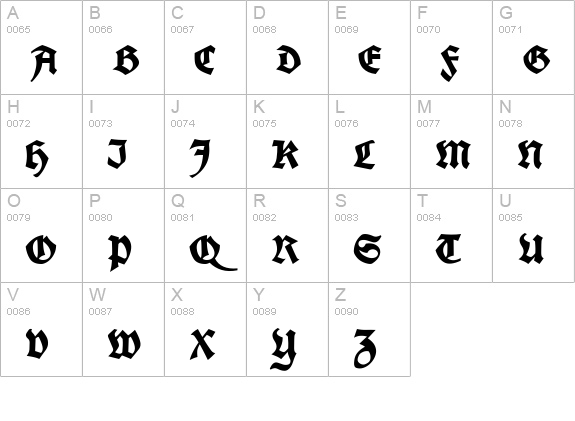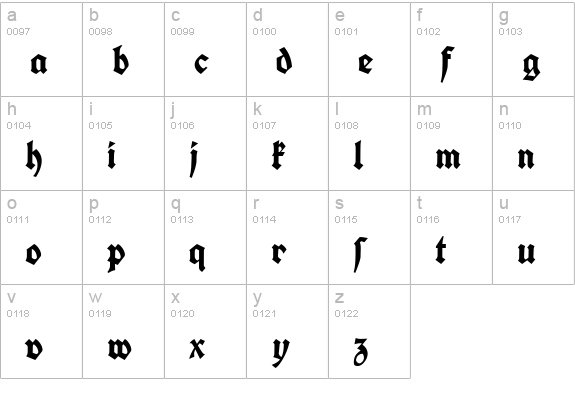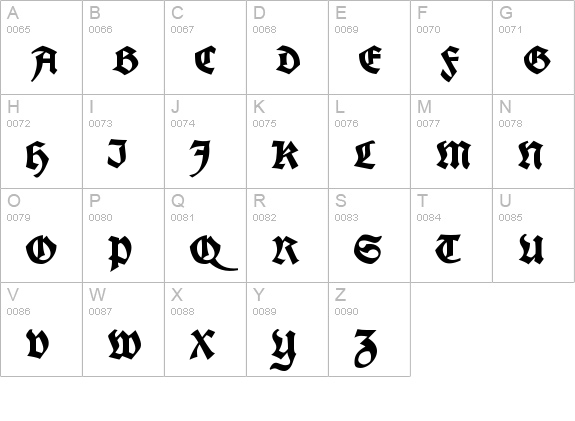
Koch Fette Deutsche Schrift Font Details
Koch Fette Deutsche Schrift is a stunning font that exudes a sense of timeless elegance and sophistication. With its bold and distinctive letterforms, this typeface pays homage to the rich history of German calligraphy. Its strong and confident strokes create a visual impact that is both eye-catching and memorable. This font is perfect for a wide range of creative projects, including branding, logo design, advertising, and editorial layouts. Its versatility allows it to seamlessly adapt to both modern and vintage aesthetics, making it a must-have for any designer or typographer. What sets Koch Fette Deutsche Schrift apart is not only its exceptional design but also its accessibility. This font is freely available to download at FontsMarket.com, allowing designers and enthusiasts alike to incorporate its beauty into their work effortlessly. Whether you are a seasoned professional or an aspiring artist, having access to this remarkable font can elevate your designs to new levels of excellence. Designed with meticulous attention to detail, Koch Fette Deutsche Schrift captures the essence of German craftsmanship and typographic mastery. Each letter is carefully crafted to ensure optimal legibility and visual impact, making it a perfect choice for headlines, titles, and prominent text elements. The versatility of Koch Fette Deutsche Schrift extends beyond print to digital applications as well. Its clean lines and well-defined curves make it highly readable on screens of all sizes, ensuring that your message will resonate with your audience, whether in print or online. In conclusion, Koch Fette Deutsche Schrift is a font that effortlessly combines elegance, versatility, and accessibility. Its timeless design and wide range of applications make it a valuable asset for any designer, while its availability as a free download at FontsMarket.com ensures that it is within reach for all. Embrace the beauty of German calligraphy with Koch Fette Deutsche Schrift and elevate your designs to new heights.